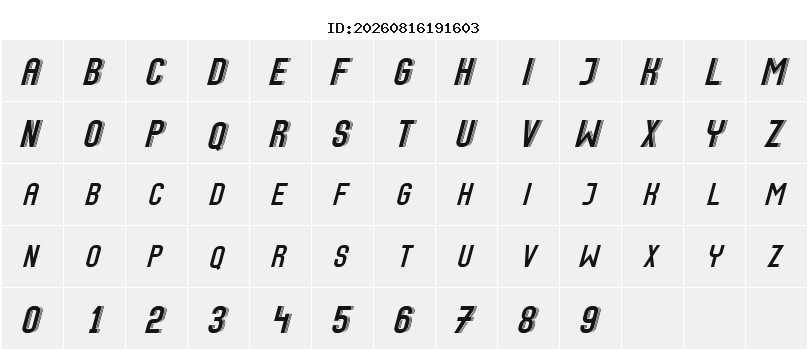
Speed+2 Preview
• Font Name: Speed+2
• Full Font Name: Speed+2
• Designer: atrax
About Speed+2.ttf
Speed+2.ttf is a modern, elegant sans-serif font designed for ultimate readability and visual harmony. Perfect for branding, headlines, web design, and print materials.